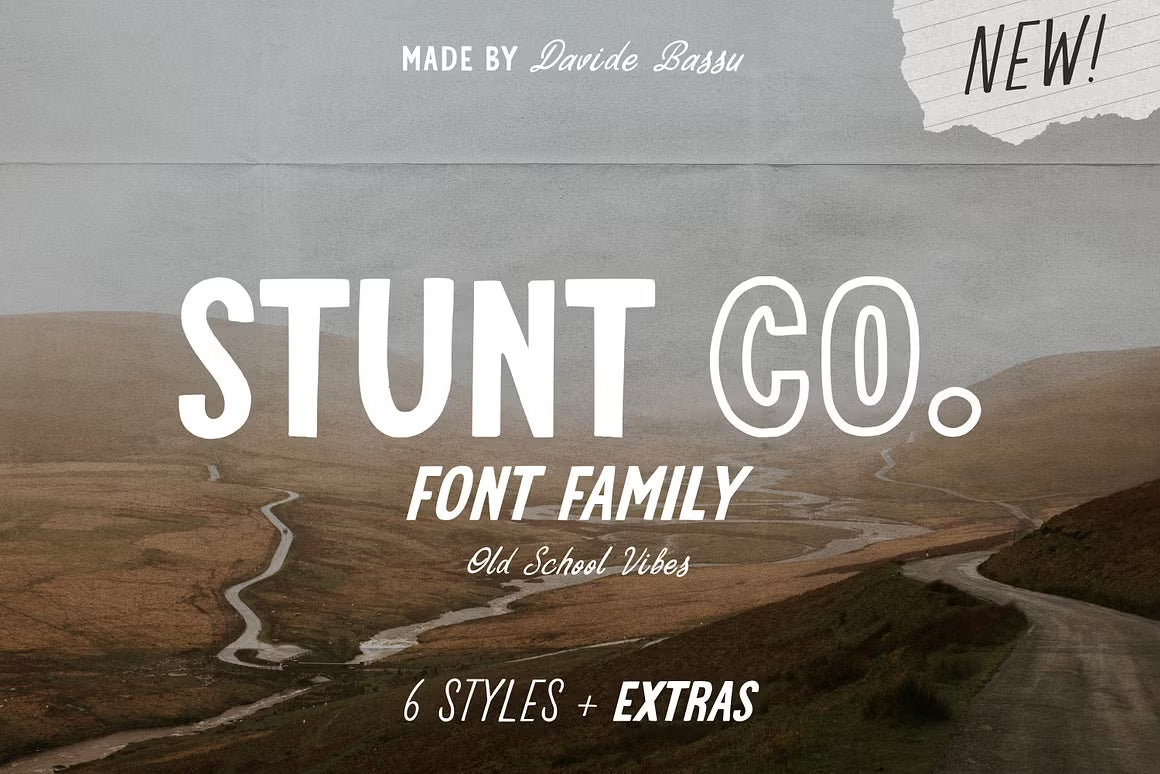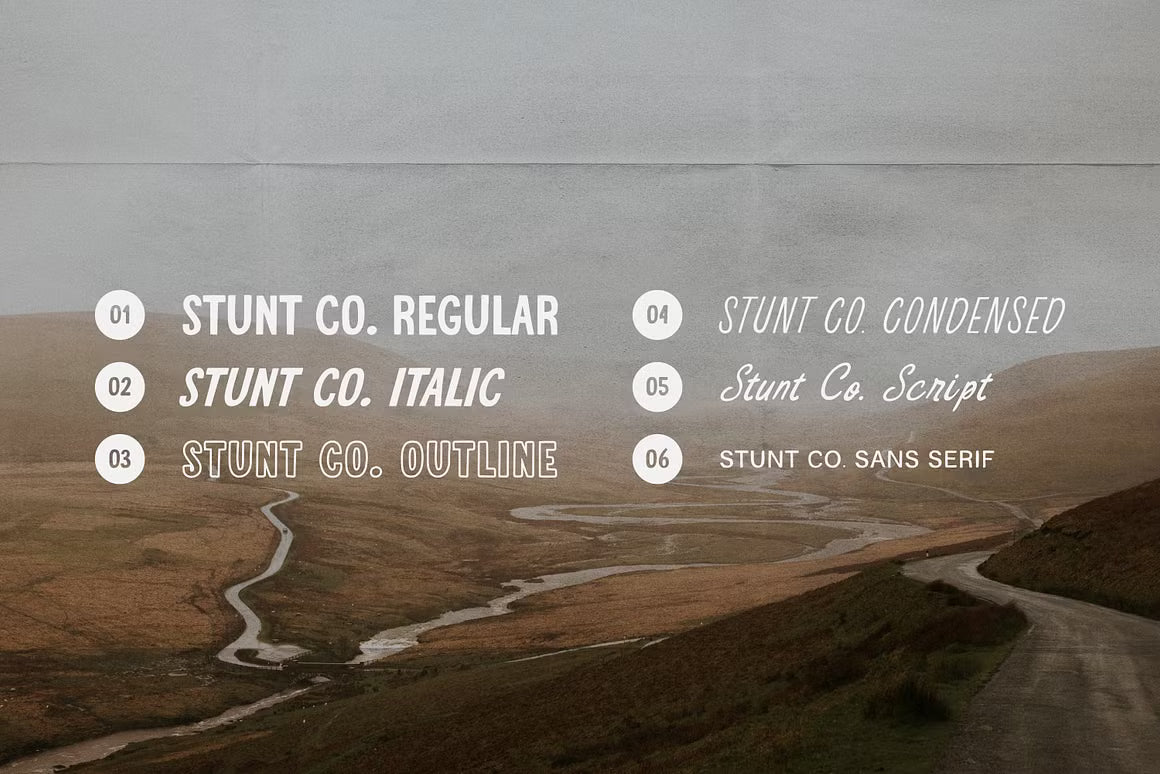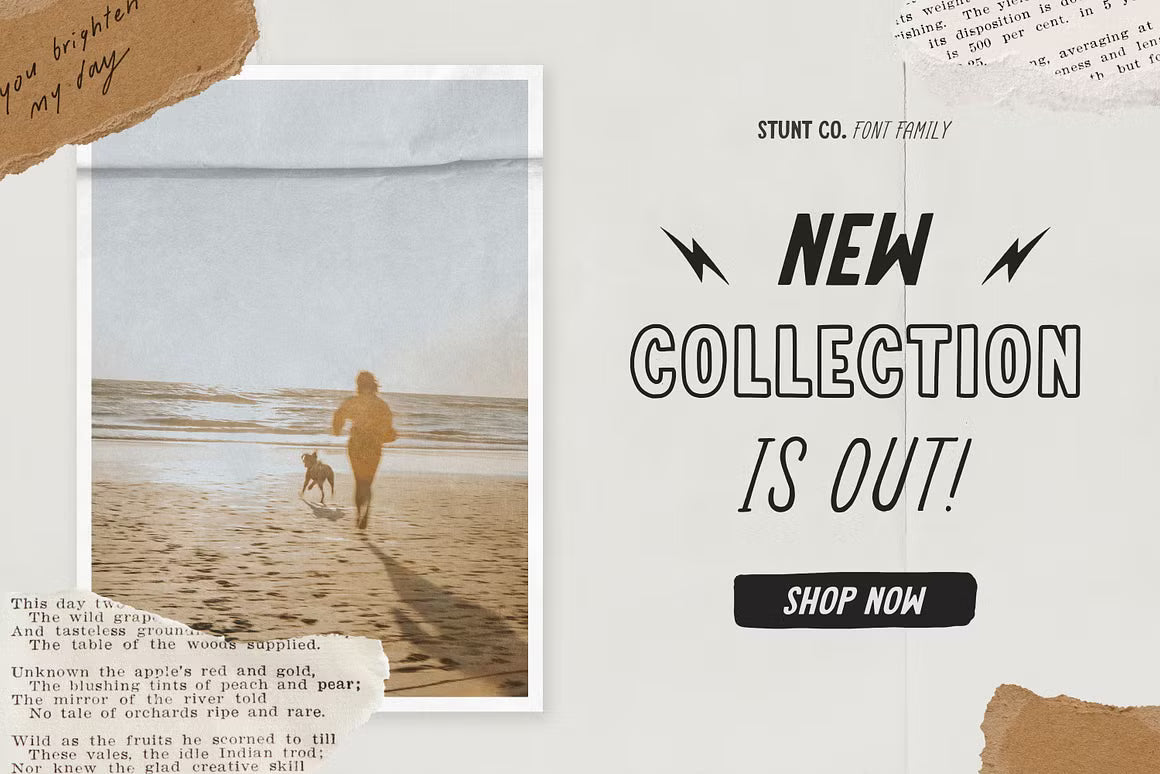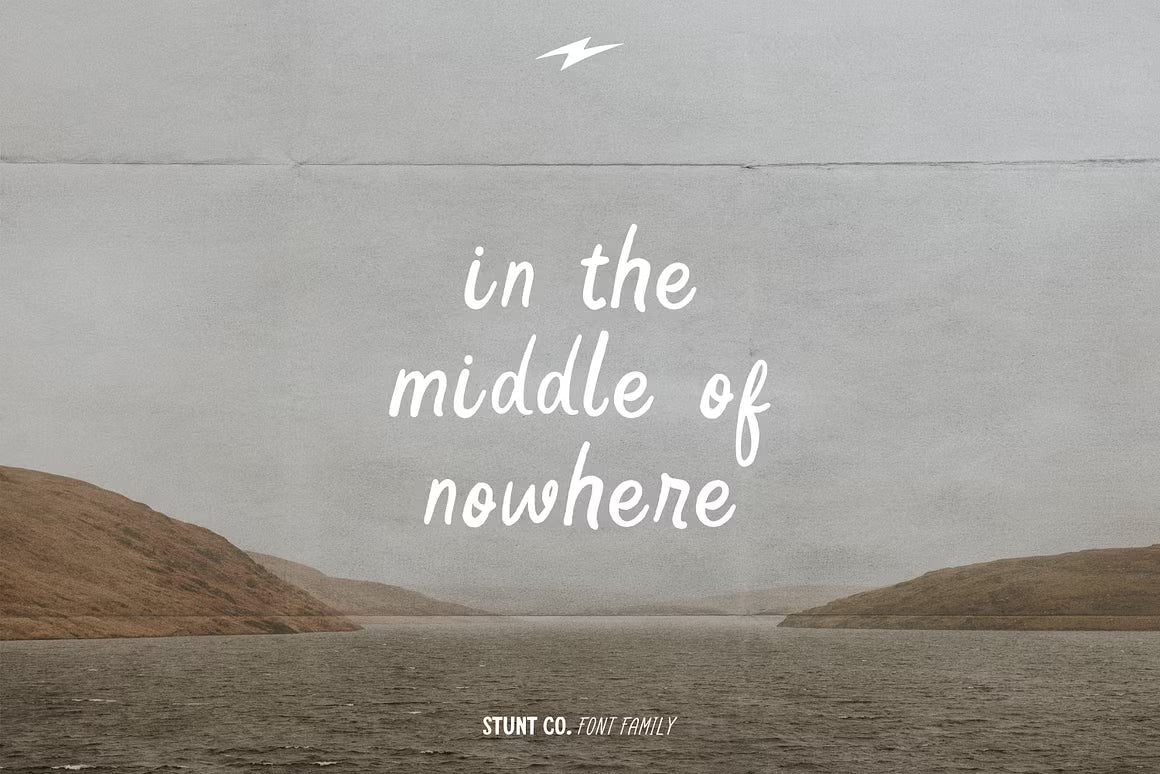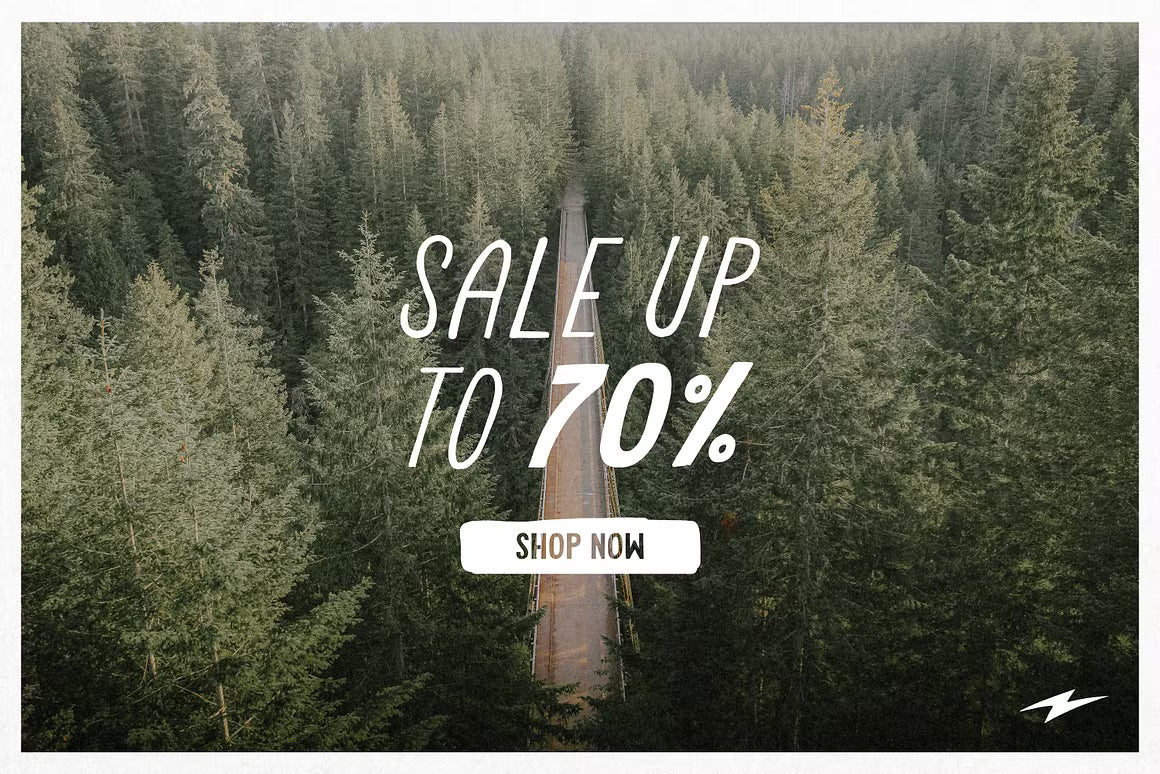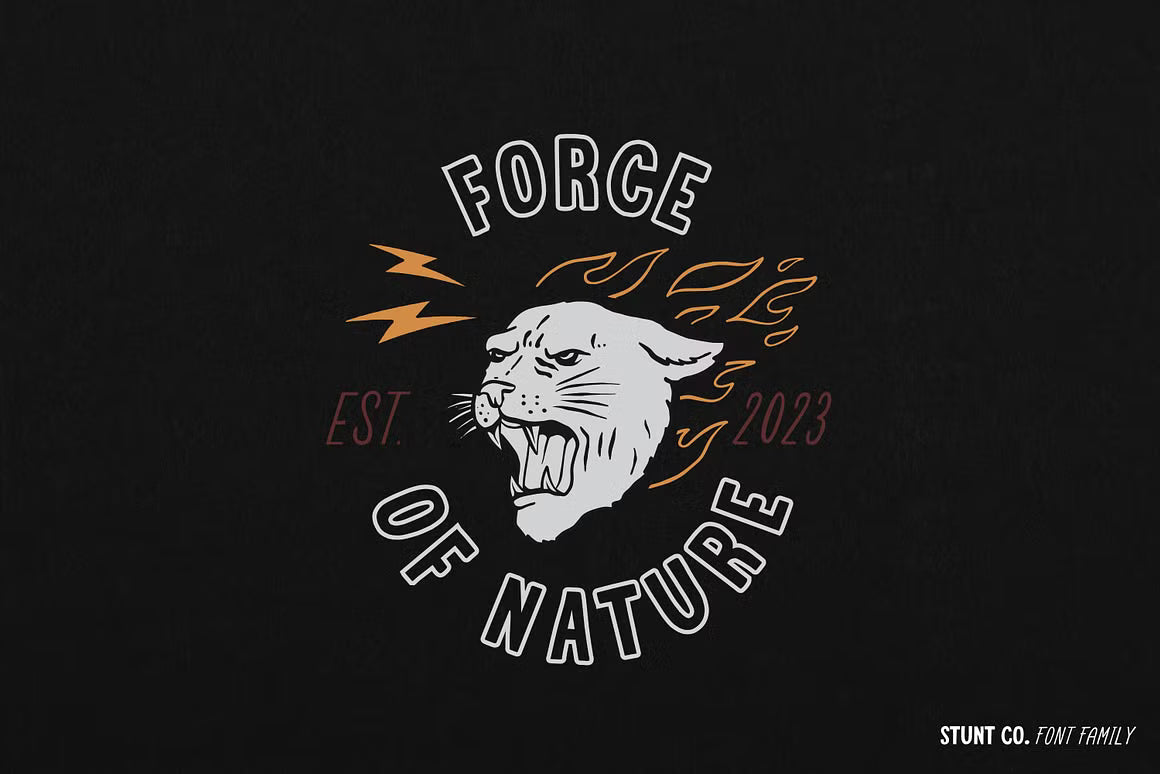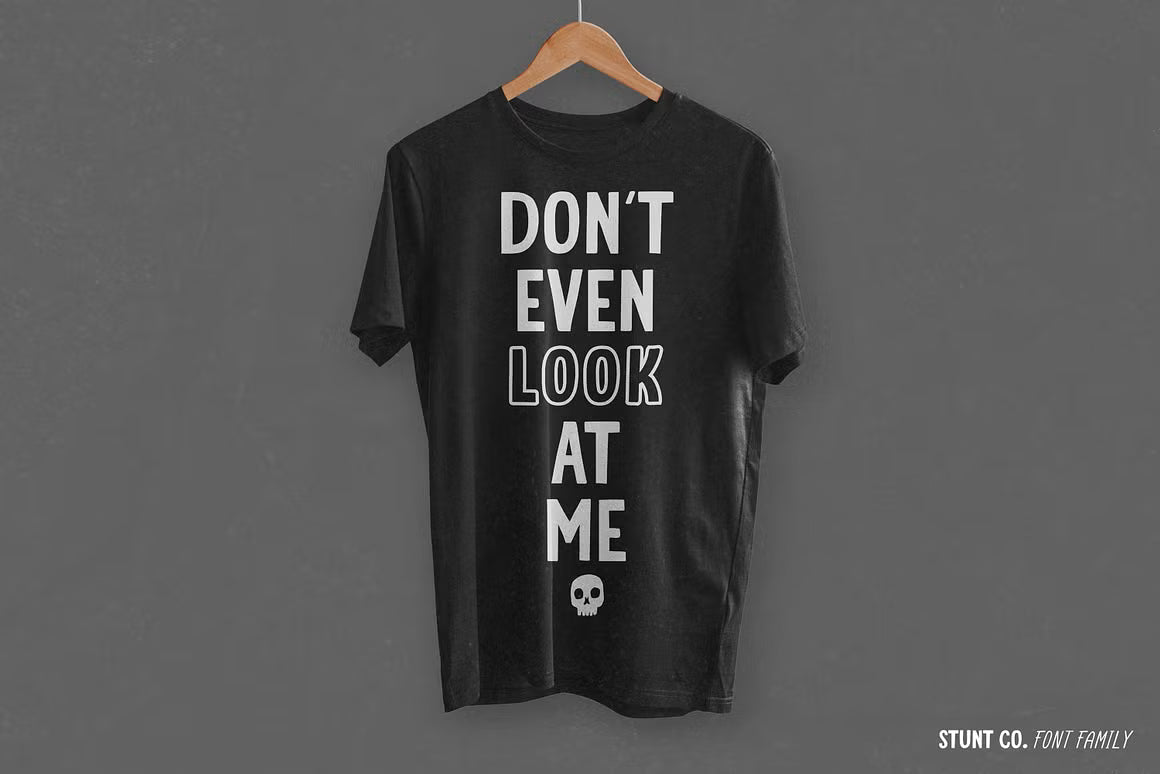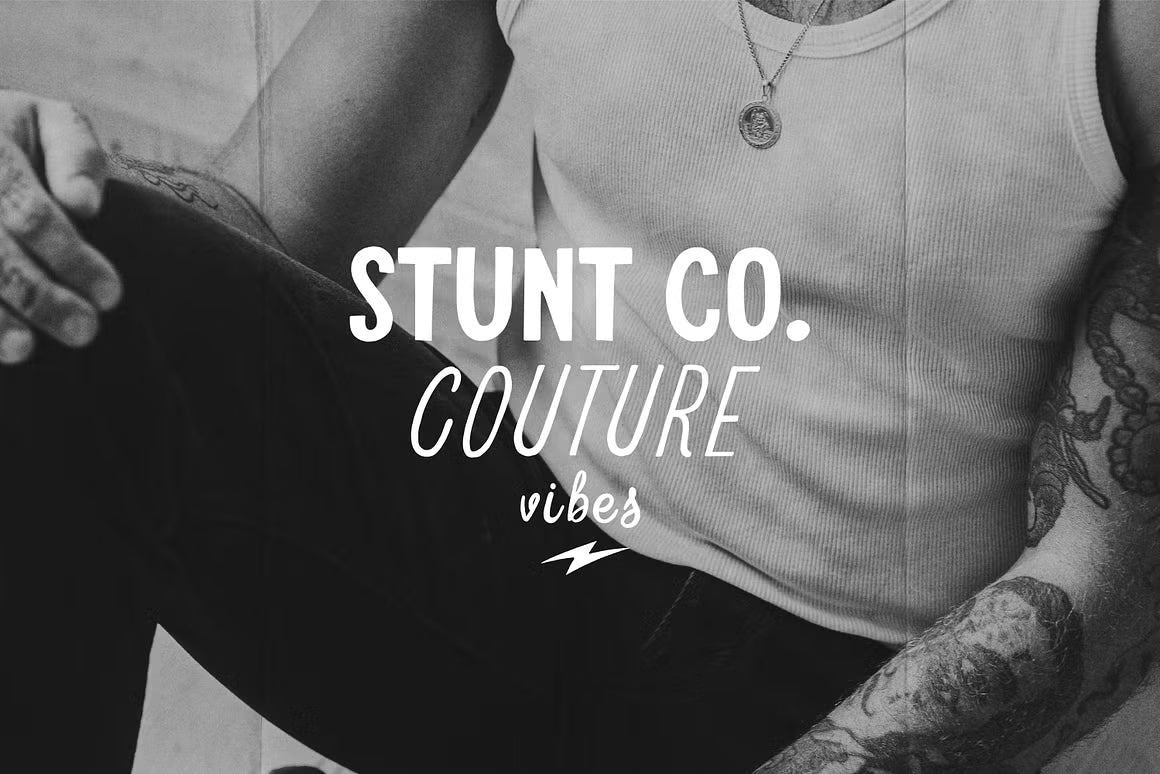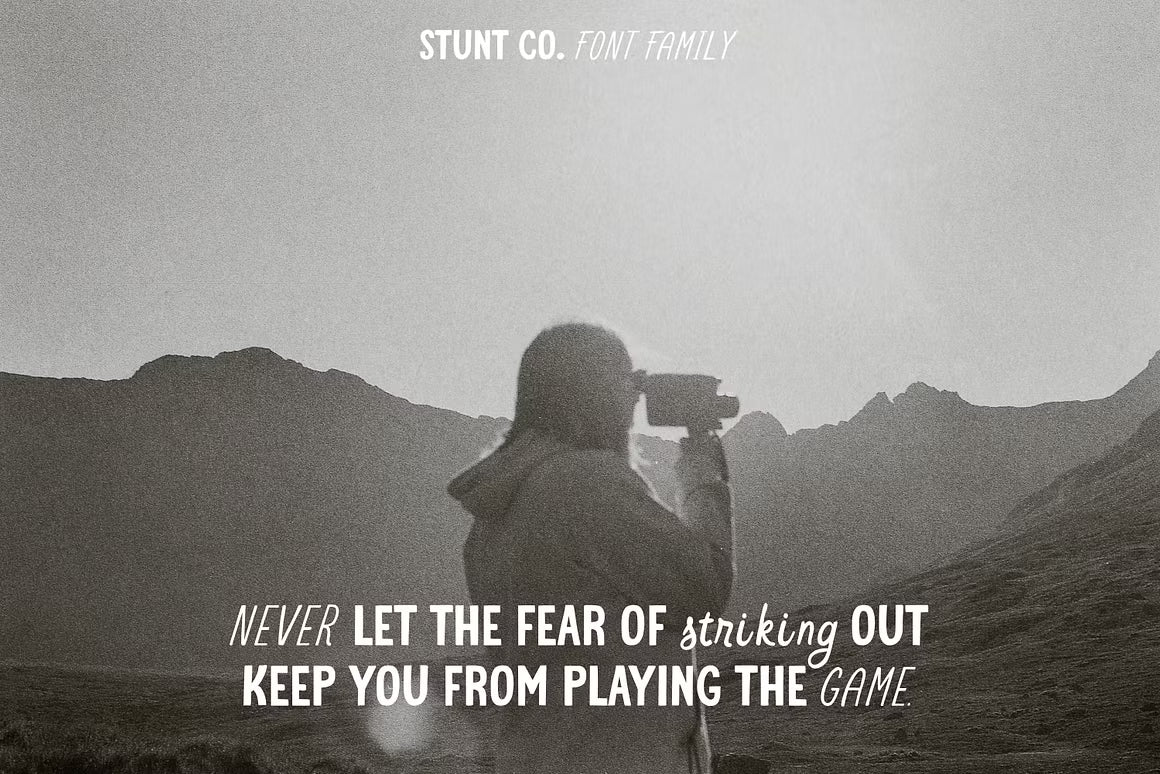
STUNT CO. Font Family + Extra is a versatile hand-drawn typeface bundle packed with personality and style. This family includes 6 unique styles — from bold Regular and edgy Outline to elegant Italic, classic Sans Serif, Condensed Italic, and a sophisticated Script — giving you endless creative options for standout designs.
Whether you're working on apparel, branding, posters, social media, or packaging, Stunt Co. delivers bold character with a hand-crafted feel. As an extra bonus, you also receive 17 isolated PNG illustrations to complement your projects.
A dynamic and fun font family perfect for projects that need energy and authentic handmade vibes.